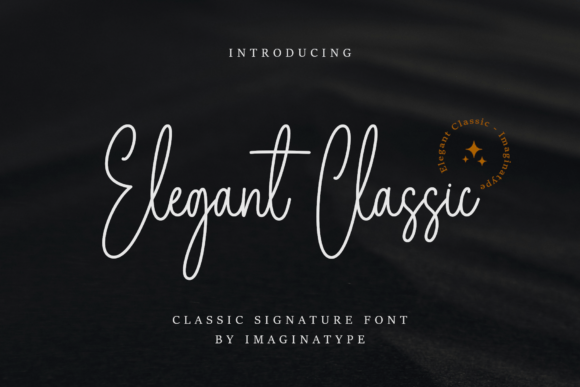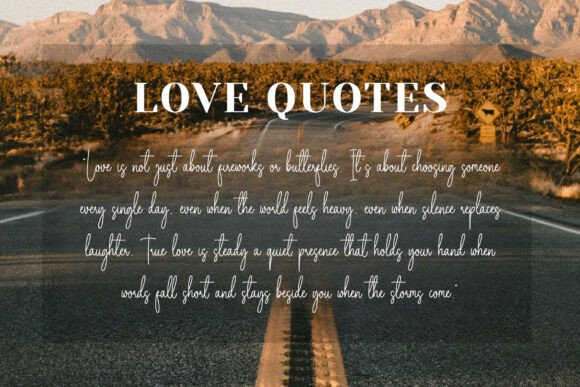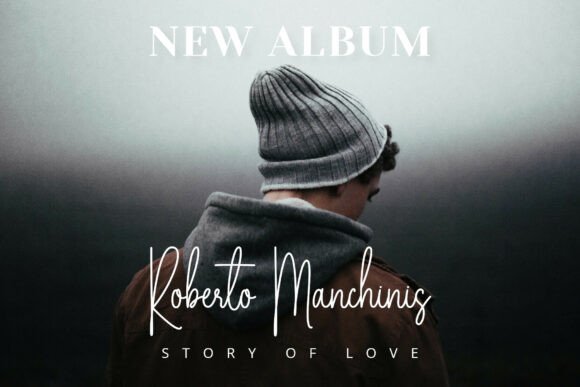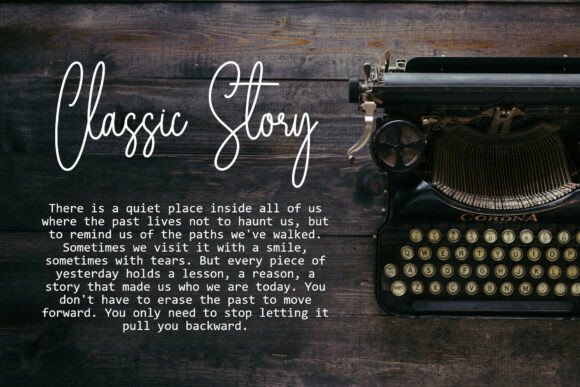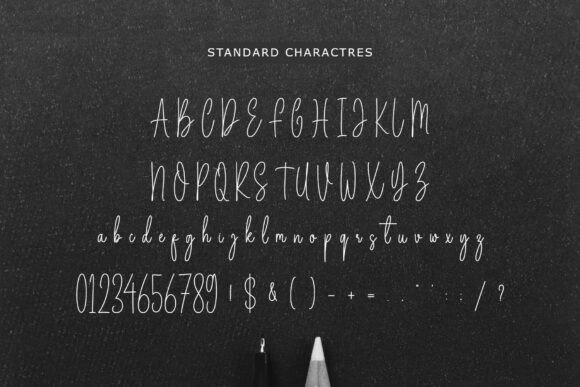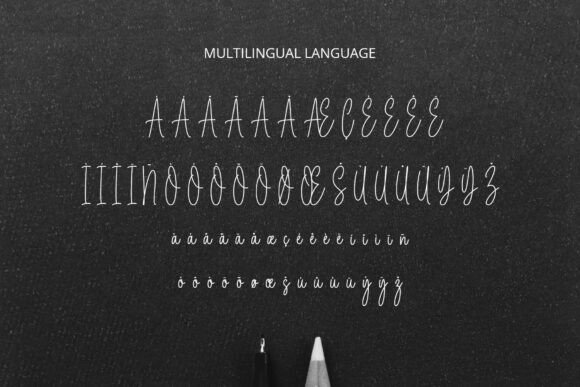
The Perfect Signature: Elevating Your Design with Timeless Elegance
Have you ever found yourself scribbling away in a notebook, searching for the perfect signature to complete your design? The struggle is real, especially when you’re working on a high-end project that demands sophistication and style. That’s where the Elegant Classic Signature Font comes in – a game-changing, handwritten script font that’s sure to elevate your visuals with its classic beauty and modern edge.
This stunning font is designed to bring a personal and luxurious touch to any project, whether it’s a wedding invitation, fashion branding, or modern packaging. With its carefully balanced curves and refined calligraphy elements, Elegant Classic Signature is the perfect addition to any designer’s toolkit.
As a designer, you know that the right font can make all the difference in setting your brand apart from the rest. The Elegant Classic Signature Font is a must-have for those who value classic beauty with a modern edge, and its versatility makes it perfect for both print and digital use.
Elegant Classic Signature Font Key Features
- Unique Characteristics: Elegant script with a classic touch, featuring subtle flourishes and elegant connections, making it perfect for signature designs and invitations.
Elegant Classic Signature Font Review
I recently had the chance to work with the “Elegant Classic Signature Font” and I have to say, it’s a beautifully crafted font that can elevate any design project. Here are some of the things that work well: ✨
- Legibility: This font is incredibly easy to read, making it perfect for body text or headings where clarity is key.
- Timeless feel: The classic style gives it a timeless feel that will never go out of fashion.
- Pairing versatility: It pairs well with a wide range of fonts, making it easy to create a cohesive design.
- Lack of expressiveness: The classic style can come across as a bit boring or unemotive, especially for projects that require a lot of personality.
- Limited bold weight: The bold weight of the font is not as strong as I would like, which can make it difficult to use in headings or titles.
Overall, I think the “Elegant Classic Signature Font” is a great choice for designers who want a clean, timeless look. While it may not be the most exciting font, it’s a solid choice for projects where simplicity and elegance are key.
Use the Elegant Classic Signature Font in conjunction with a simple background to create a clean and elegant design. Experiment with different font sizes and styles to create a unique signature look. Consider using the font in combination with a bold line or a vector shape to add depth to your design.
The Elegant Classic Signature Font is ideal for creating business cards, letterheads, and signature-style designs. It is also suitable for use in wedding invitations, certificates, and other formal documents.